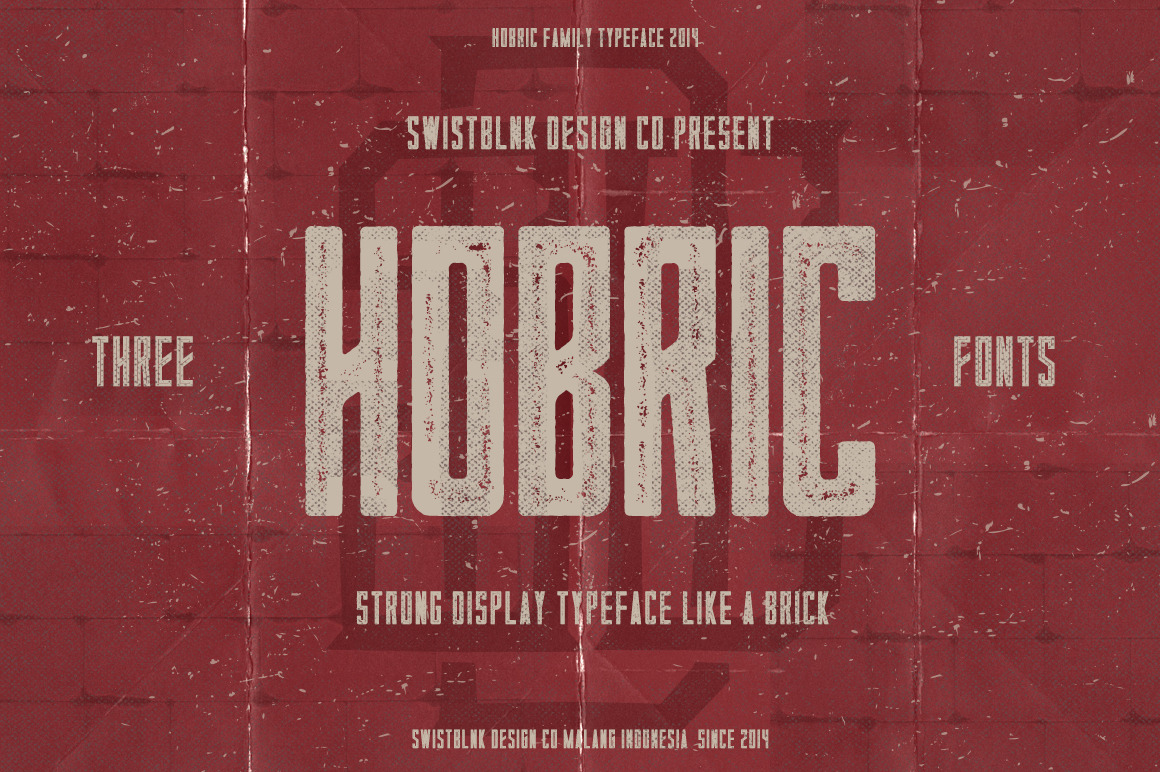
Hobric Family Typeface
Hobric Family
Hobric is Modern Vintage typeface inspired by Old brick with some Modern touch. Great for almost all of your designing needs including headline, labels, logo, etc.
Hobric Family includes 3 fonts :
- Hobric Regular
- Hobric Inline
- Hobric Vintage